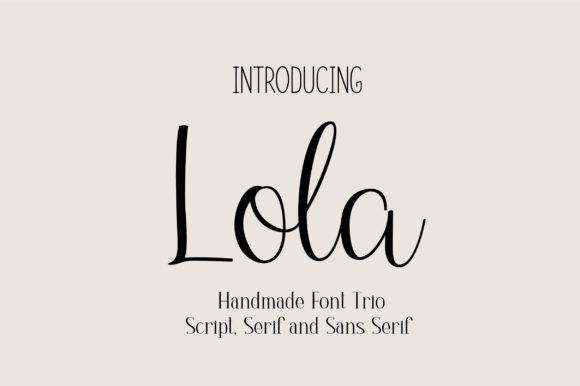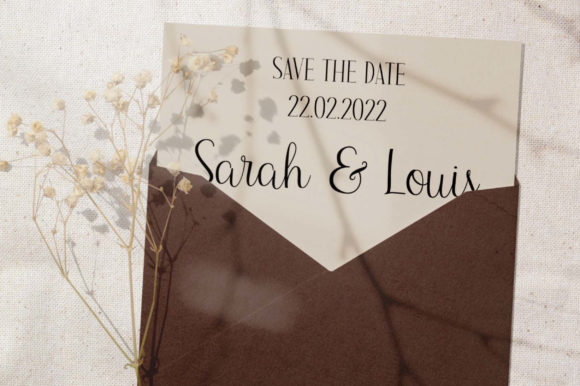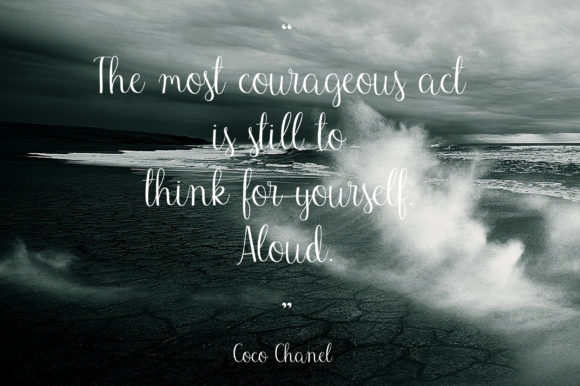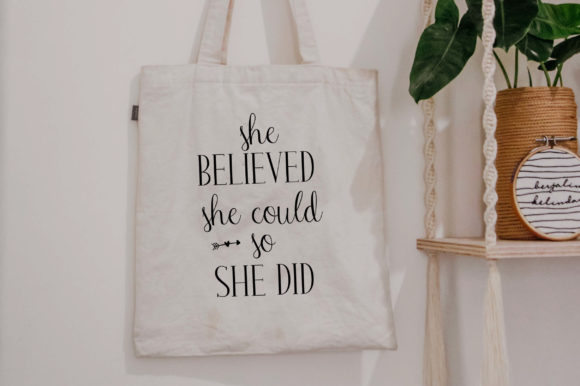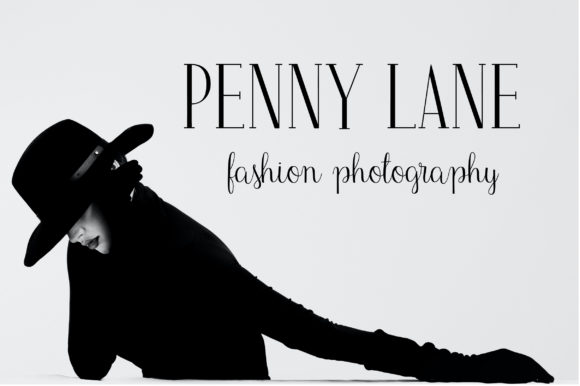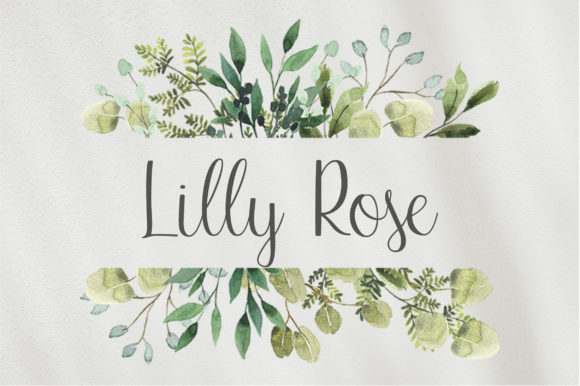
Lola Trio Font
About Lola Trio Font
The Lola is an amazing font trio. It includes a script, sans serif and serif version which can be combined perfectly.
The combination of this trio is suitable for branding, packaging, posters, logos, invites, greeting cards, book covers, and much more!